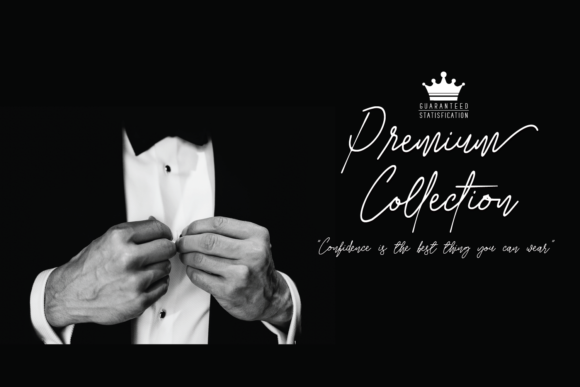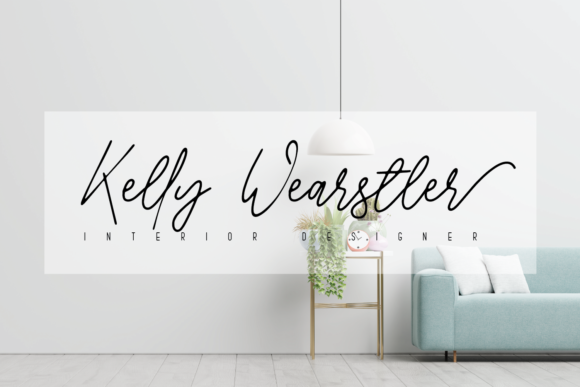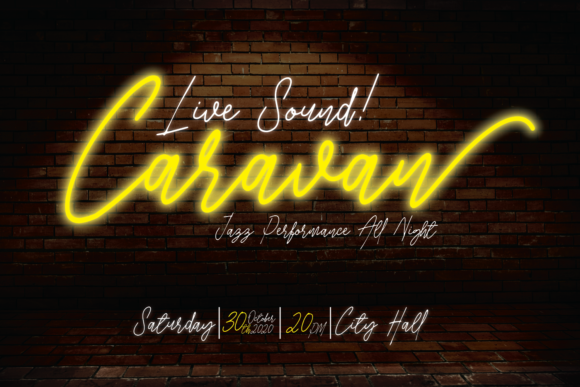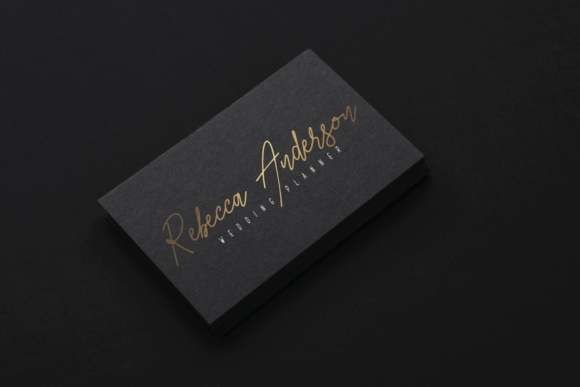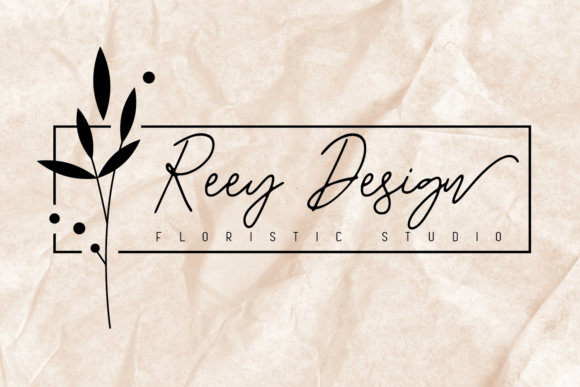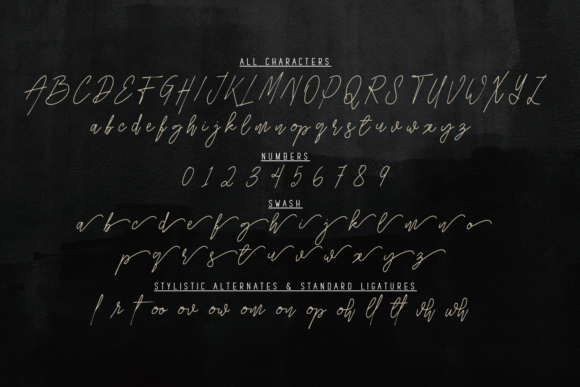
Introduction to Hillusy Font
There’s something magical about discovering the perfect font for your next creative project. You’re browsing through design resources, searching for that special something to bring your vision to life. And then, it happens – you stumble upon the Hillusy Font. Its sweet and cursive handwritten style immediately catches your eye, transporting you to a world of romance and joy.
As a designer, you know how valuable it is to have access to high-quality design resources like the Hillusy Font. With its transparent background and elegant curves, this font is perfect for adding a touch of whimsy to your next project. Whether you’re working on a wedding invitation, a children’s book, or a romantic blog post, the Hillusy Font is sure to make it stand out.
Key Features of Hillusy Font
- High-quality design resource suitable for creative projects, offering a unique and eye-catching style.
- Designed to be highly versatile, making it suitable for use in a variety of creative projects, from logos and branding to typography and graphics.
Honest Review: Hillusy Font
I recently stumbled upon the Hillusy Font and I must say, it’s a great addition to any design resource collection. This font is perfect for creative projects that require a unique touch.
Here are some of the font’s features:
Any limitations: ⚠️ The Hillusy Font may not be suitable for formal or professional projects, as it has a more playful and whimsical feel. Additionally, some users may find the font to be a bit too ornate or over-the-top.
Overall impression: I’m really impressed with the Hillusy Font and I think it’s a great addition to any design resource collection. It’s perfect for designers who want to add a unique touch to their creative projects.
Hillusy Font is a versatile design resource that can be used for a variety of creative projects, including graphics, presentations, and documents. It is perfect for designers, artists, and anyone looking to add a touch of elegance and sophistication to their designs. With its high-quality design and transparent background, Hillusy Font is a must-have design resource for any creative project.